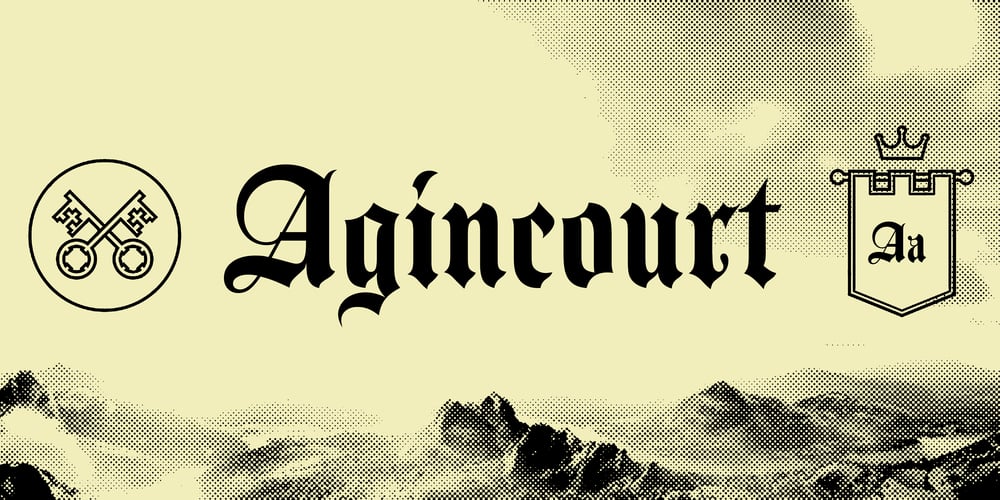
Agincourt Font Family was designed by David Quay and published by ITC. Agincourt contains 1 styles and family package options. English designer David Quay created the Agincourt font in 1983. Drawn after the Old English style of type, Agincourt features intricate capitals, which complement the more reserved, slightly condensed lowercase. Agincourt is perfect for use on certificates, greeting cards, or anything that should have an historical appearance.